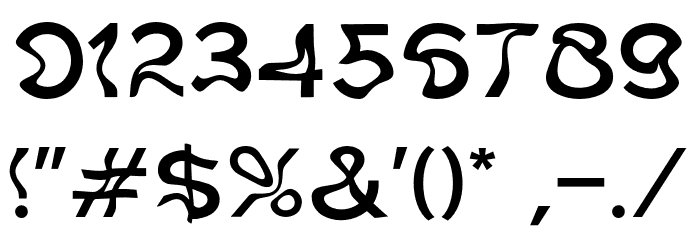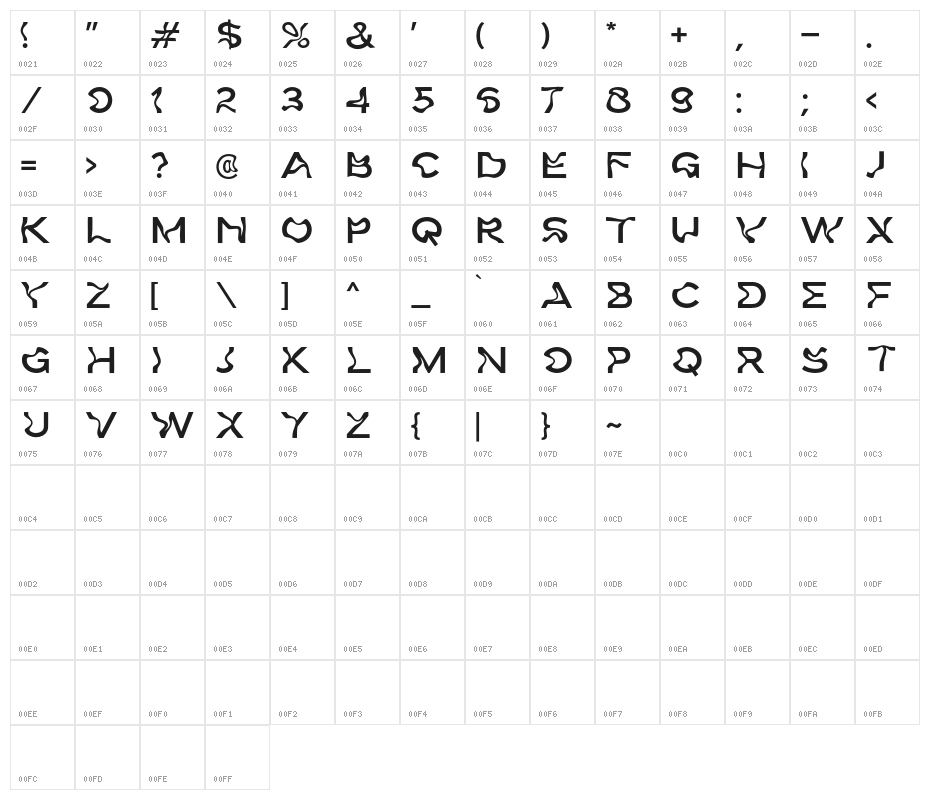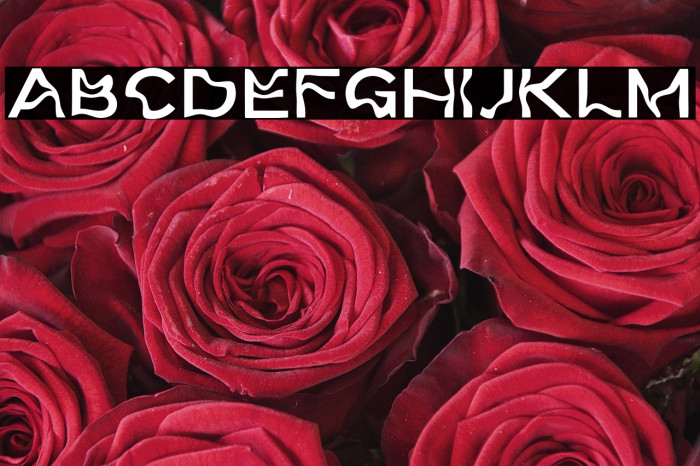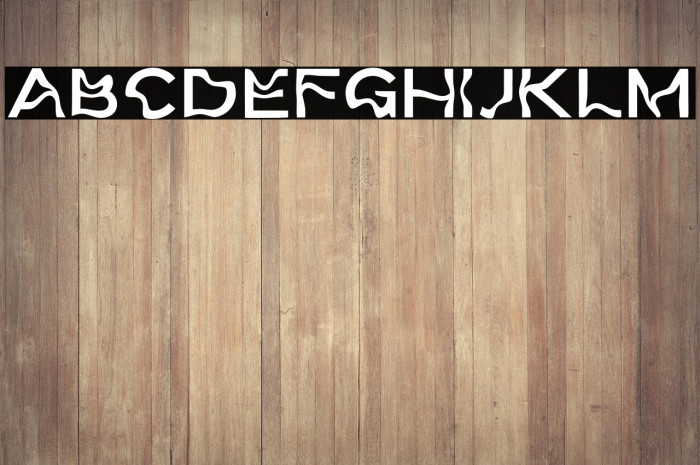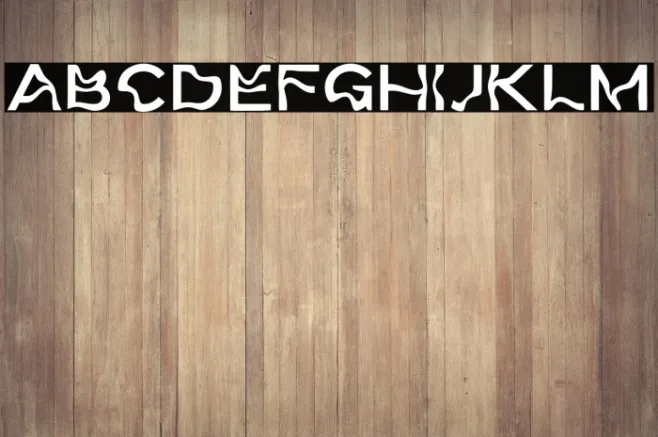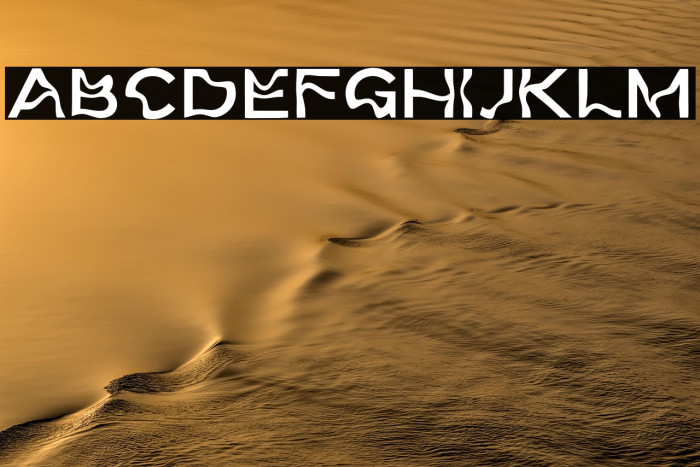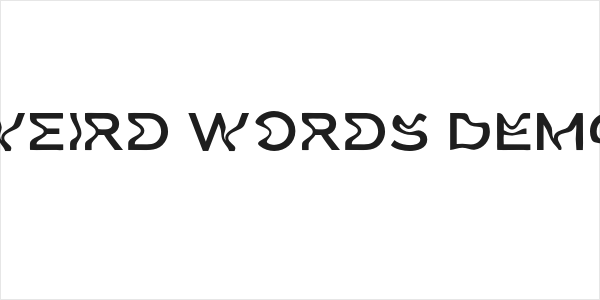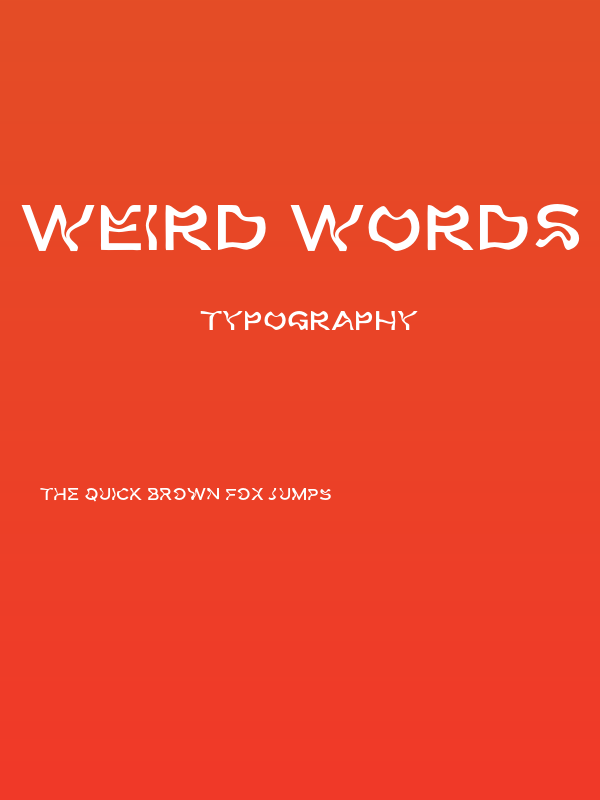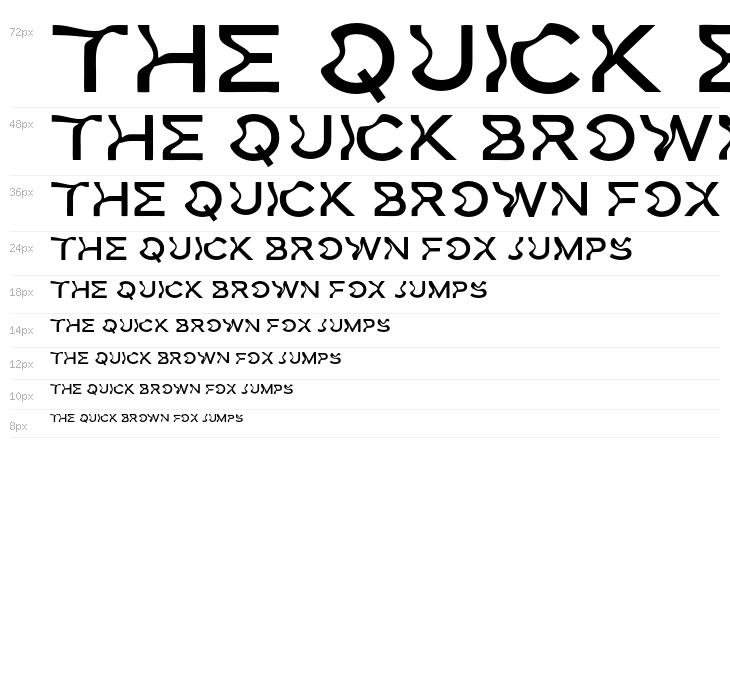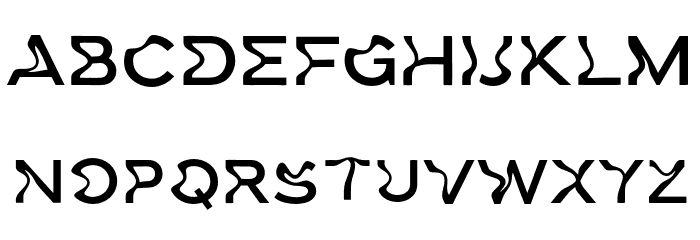
Weird Words DEMO Font
Weird Words DEMO Description
This font features a unique and artistic design with a playful twist. Each character is crafted with bold, thick strokes that create a sense of movement and energy. The letters have an irregular, almost hand-drawn quality, with varying line thicknesses that add to its quirky charm. The uppercase and lowercase letters maintain a consistent style, while the numbers and special characters are equally distinctive, making this font stand out in any design. Its bold presence and creative flair make it ideal for projects that require a touch of whimsy and originality.
Proposed ProjectsPerfect for creative projects like posters, album covers, children's books, and branding that requires a unique and playful touch.